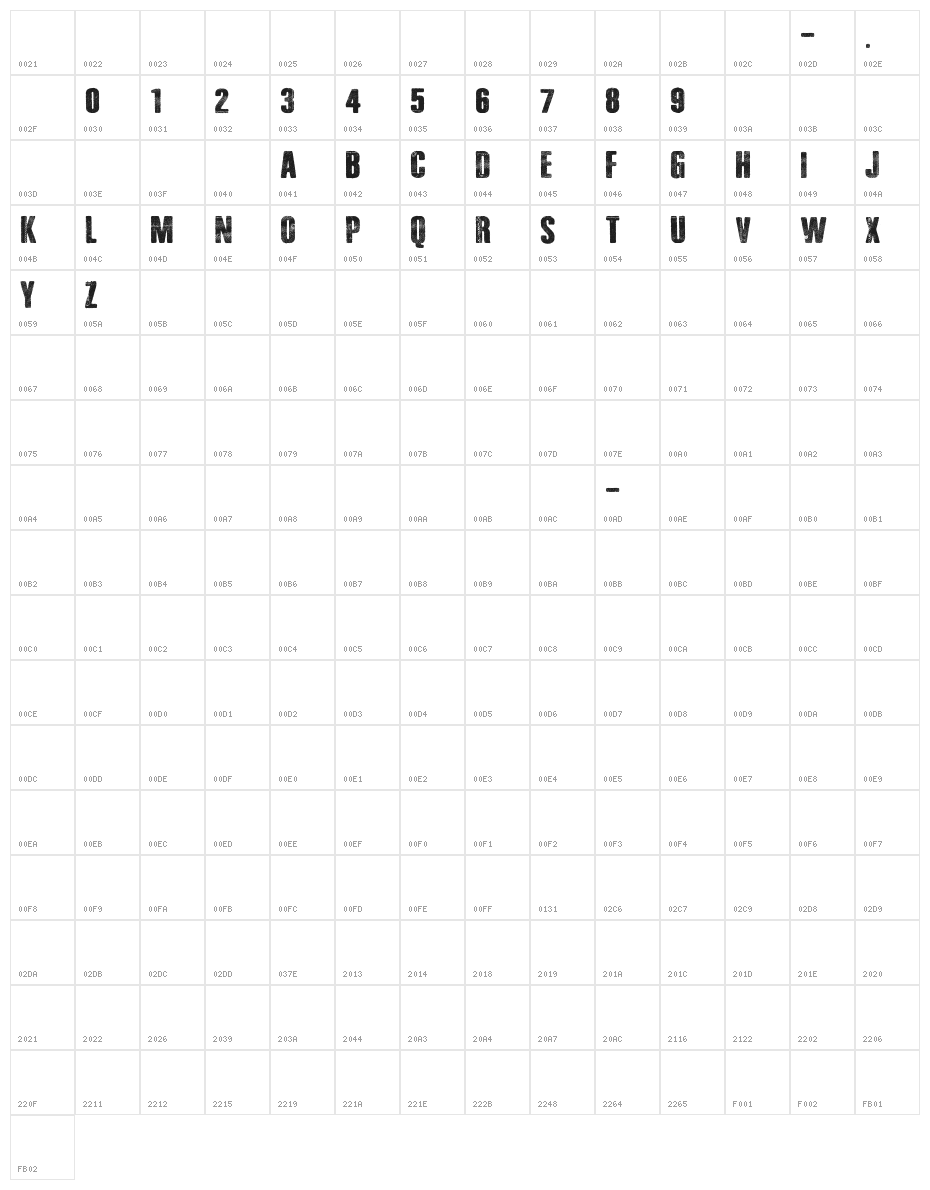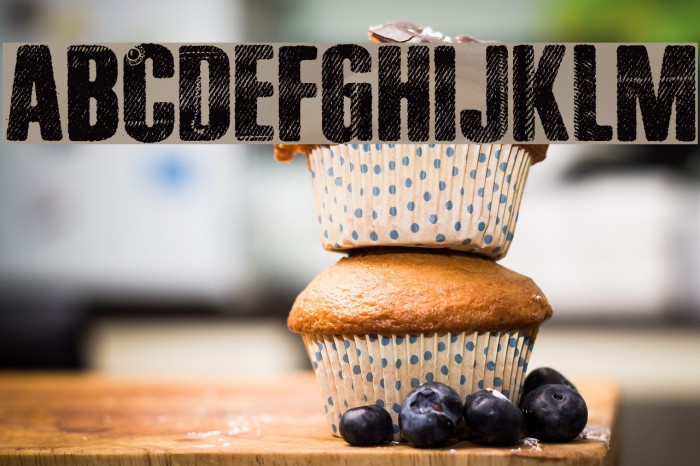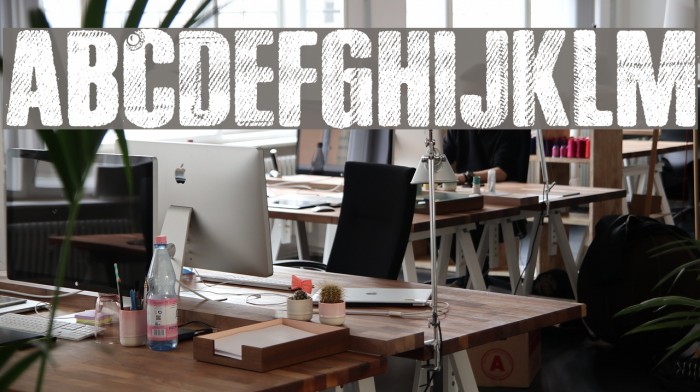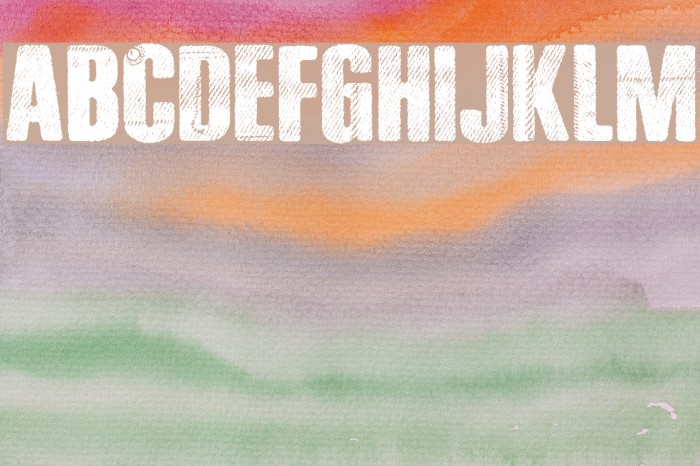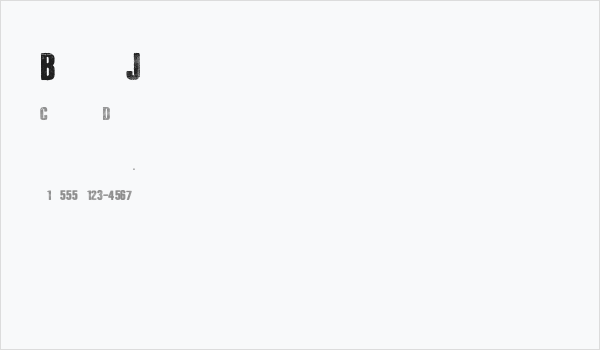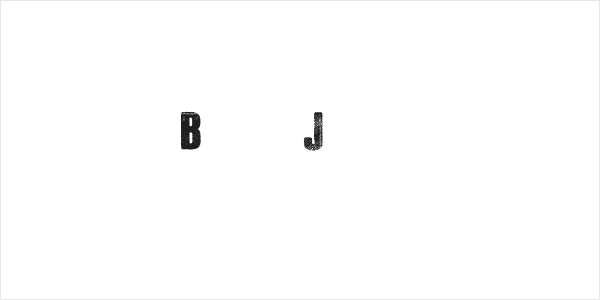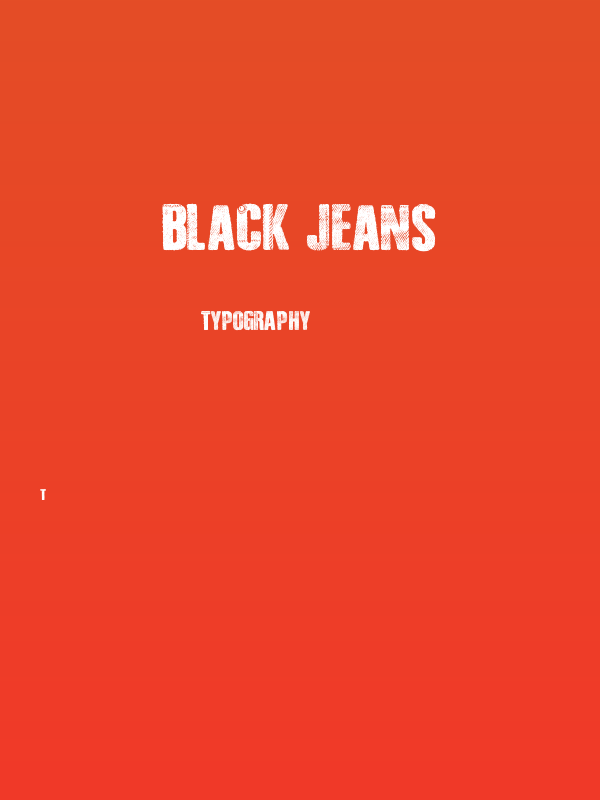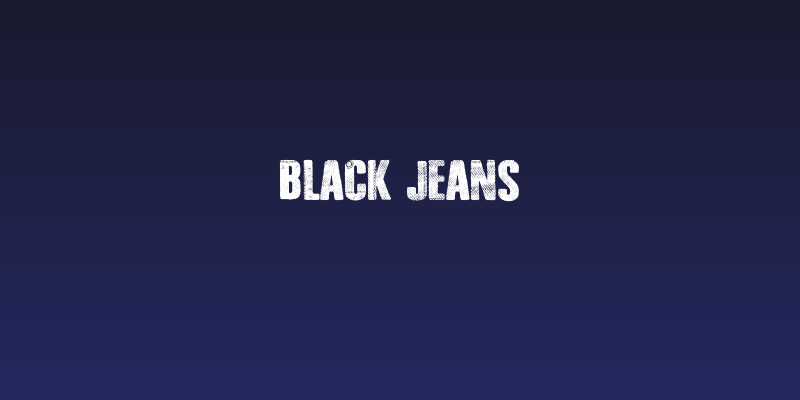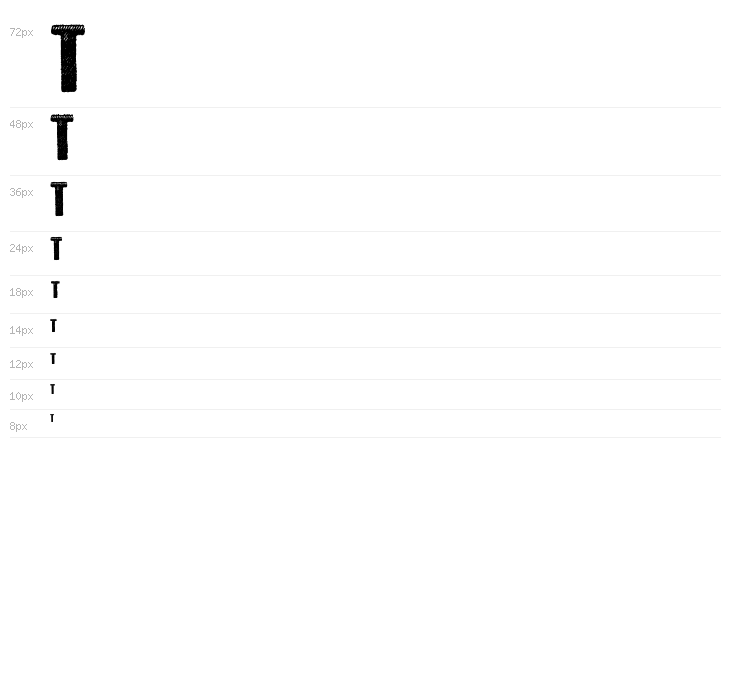
Black Jeans Font
Black Jeans Description
This font features a bold, textured style with a distressed appearance, reminiscent of vintage denim or worn fabric. The uppercase letters are robust and impactful, making them ideal for attention-grabbing headlines. The numbers share the same bold and textured characteristics, ensuring consistency across different uses. The font's unique texture adds a layer of depth and character, making it suitable for projects that require a rugged or industrial feel. Its distinct style is both eye-catching and memorable, perfect for branding or design work that aims to stand out.
| Proposed Projects | Ideal for branding, posters, apparel design, and any project needing a rugged, vintage aesthetic. |